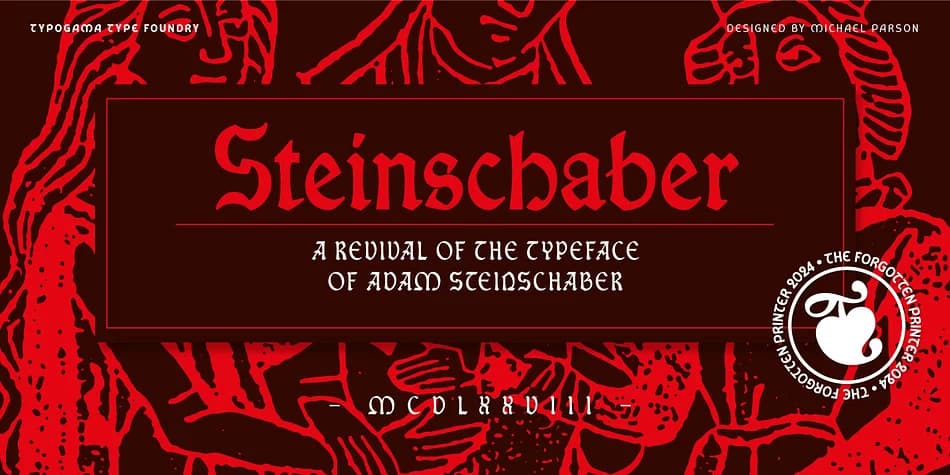
The twisted serifs and angular strokes of a 16th-century Rotunda style define Steinschaber, a blackletter display typeface designed by Typogama. Those quirky letterforms carry pronounced diagonal weight and tonal contrast that read equally well as a historical reference or when integrated into contemporary design work. The typeface springs from Adam Steinschaber's printing legacy in Geneva, a figure celebrated through the Forgotten Printer collection, which traces the intersection of historical typography and modern application.
The OpenType version includes a secondary set of titling capitals, giving you alternate letterforms to explore different compositional approaches. Blackletters like this work especially well for wedding invitation suites, vintage apothecary labels, book cover titles, and concert poster design. Formal announcements and vintage-inspired branding projects both benefit from the strong character of each letter, which adds unmistakable presence without requiring additional ornamentation. You get a full Latin character set, a series of typographic fleurons for decorative detail, and multiple numeral styles to handle dates and prices across your layout.
Steinschaber Font is a blackletter font that shines as a display or heading face. Pair it with a clean serif or sans-serif font for body text β the contrast creates a clear hierarchy while the two styles stay balanced and easy to read.